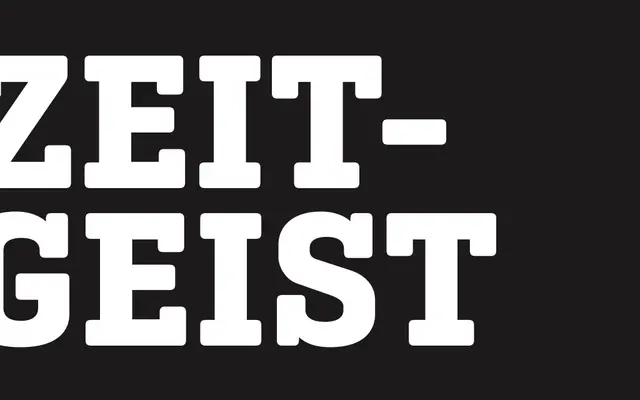
Geogrotesque Slab
A slab serif companion to Geogrotesque, adding serifs to the same geometric skeleton across seven weights with matching italics.
Designed as a direct companion to Geogrotesque, this slab variant preserves the original's geometric proportions and approachable character while the added serifs introduce a firmer, more authoritative tone. The family spans 14 styles across seven weights from Thin to Bold, each with a corresponding italic. Broad Latin Extended glyph coverage, including ligatures, fractions and super- and subscript figures, makes it suited to editorial and corporate applications.
A slab serif companion to the geometric grotesque Geogrotesque, retaining the same underlying geometric structure while adding bracketed serifs, placing it firmly in the geometric slab category.